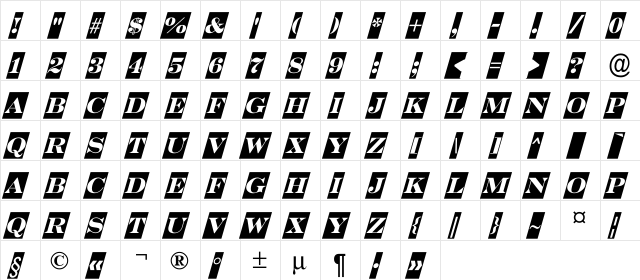
a_SeriferTitulCmObl Regular
Design Context for a_SeriferTitulCmObl Typeface
a_SeriferTitulCmObl carries the refined structure of traditional serif typography, with bracketed terminals and considered proportions that communicate credibility and craft.
Pro Tip: Set a_SeriferTitulCmObl with slightly loose tracking in headlines to let each letterform's detail read clearly at display sizes.